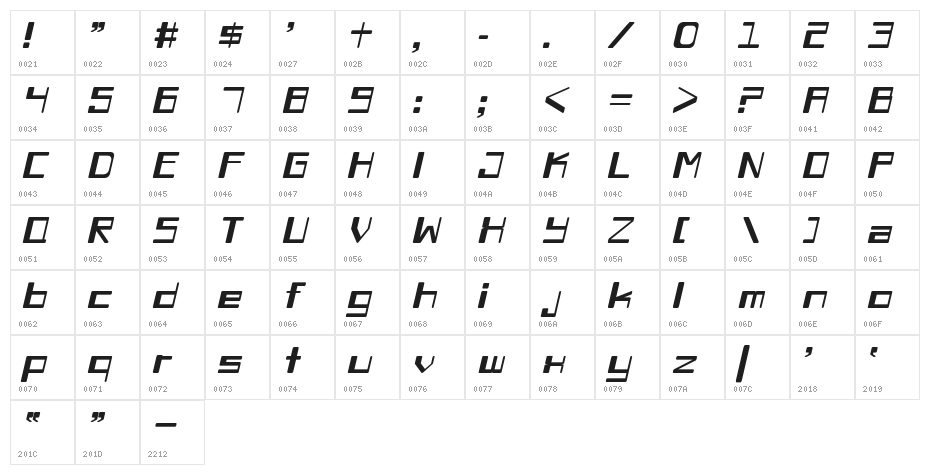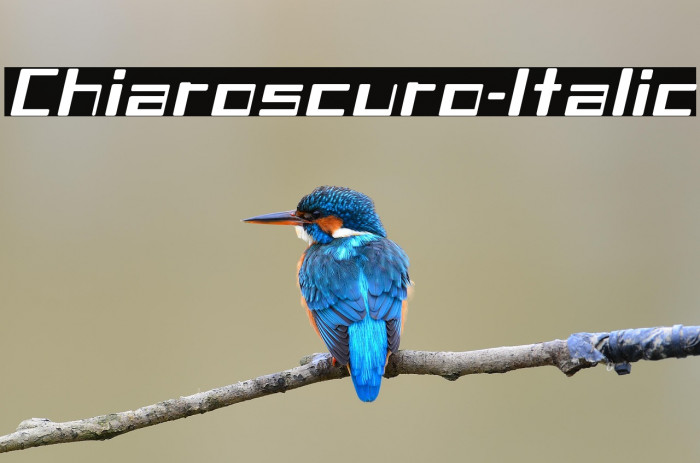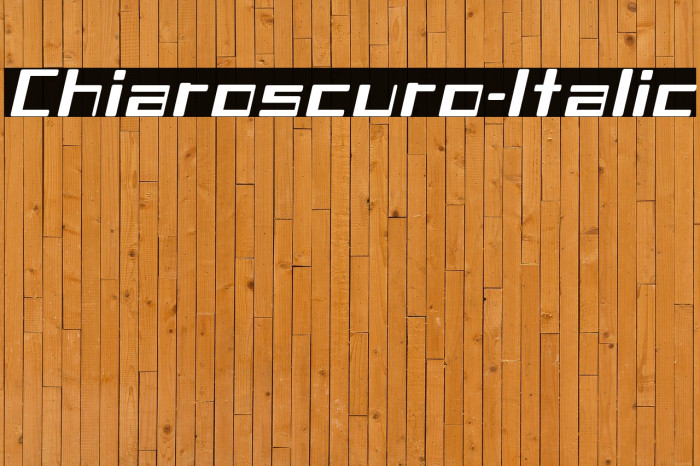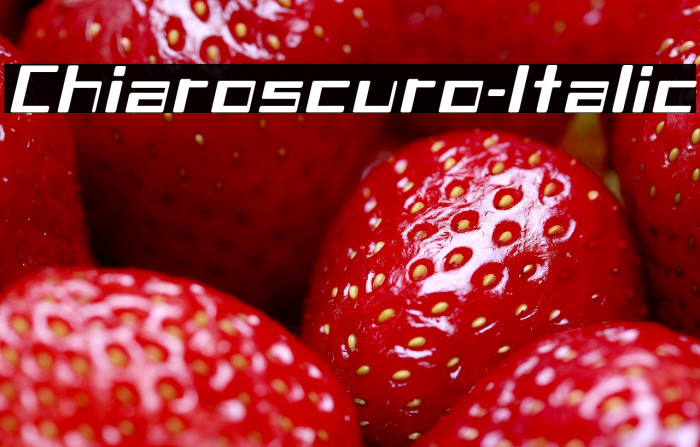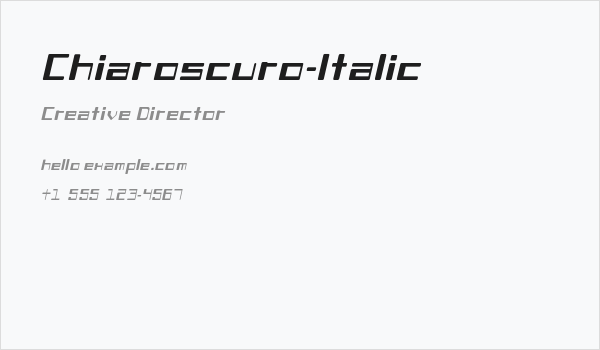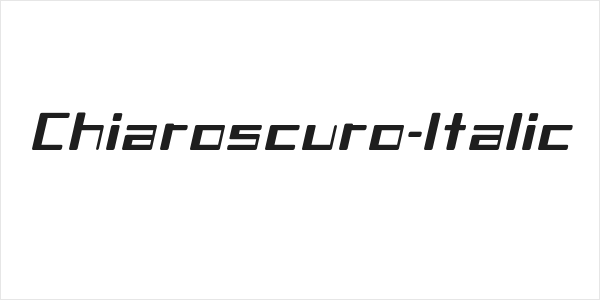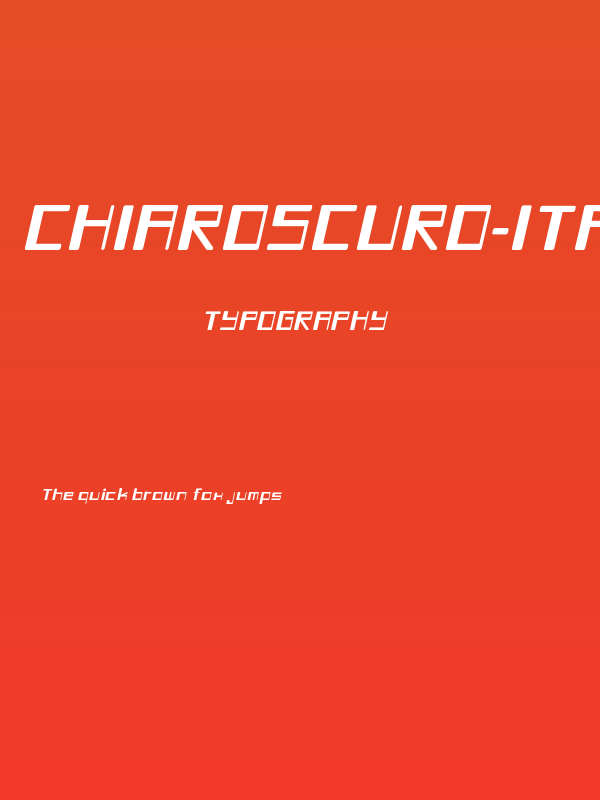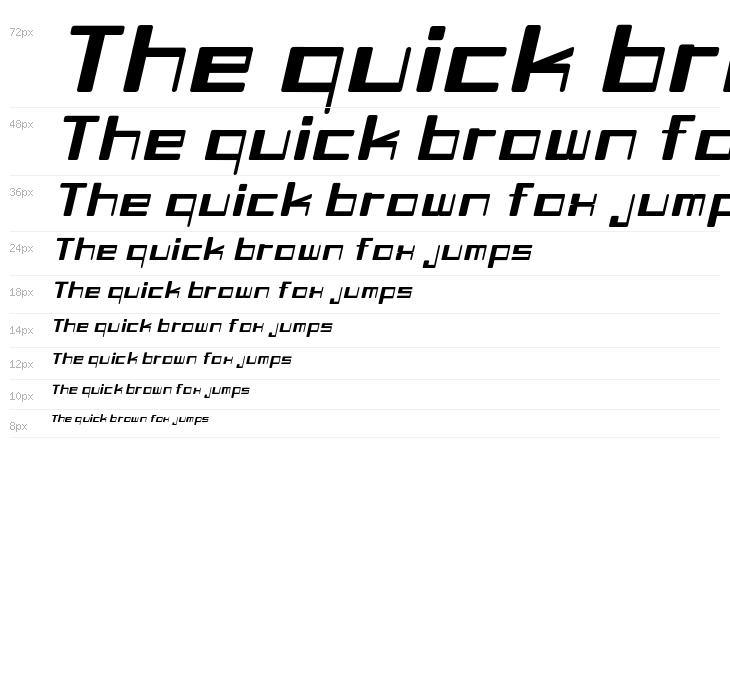
Chiaroscuro-Italic Font
Chiaroscuro-Italic Description
This font features a dynamic and modern italic style with a distinct slant, giving it a sense of motion and energy. The characters are crafted with sharp angles and clean lines, creating a futuristic and sleek appearance. The uppercase and lowercase letters maintain a consistent style, while the numerals and special characters complement the overall design. The font's structure is both bold and streamlined, making it suitable for impactful visual communication.
Proposed ProjectsIdeal for branding, sports team logos, tech-related designs, and dynamic advertising materials.